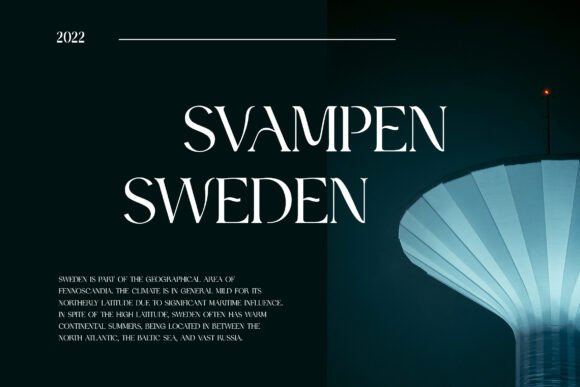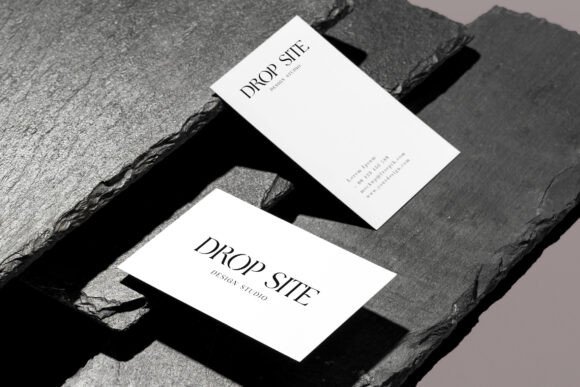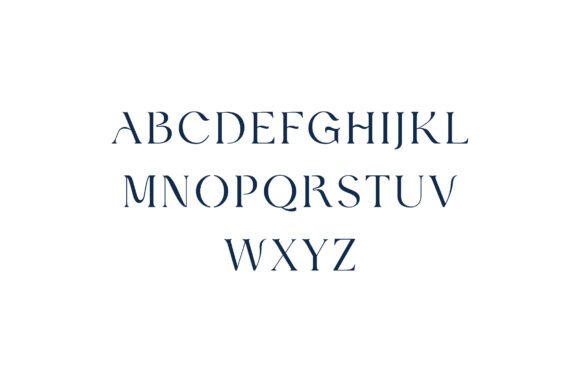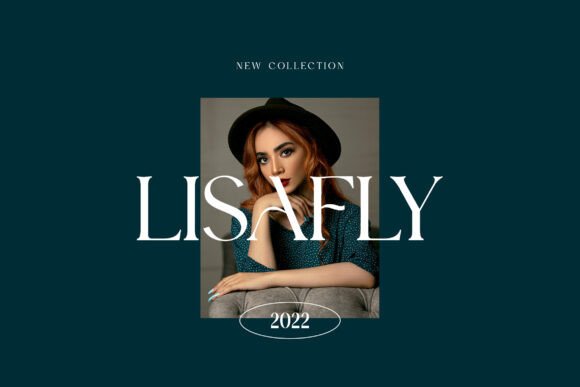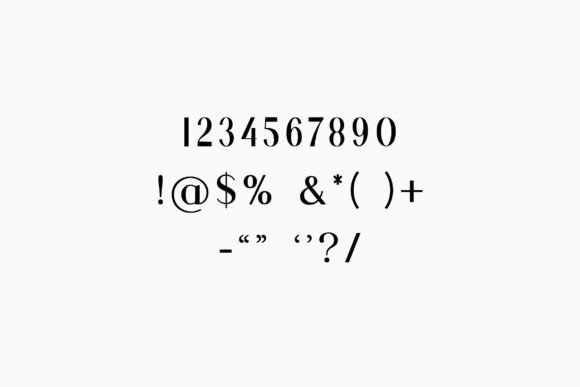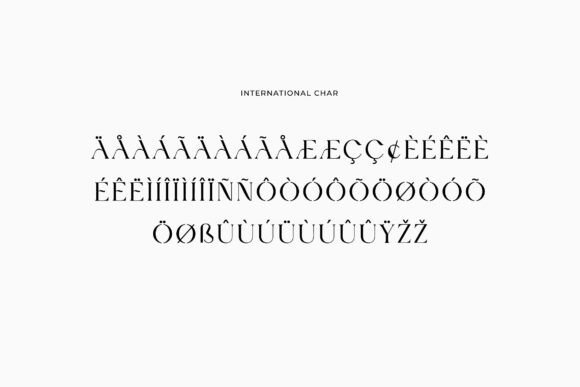
The Perfect Font for Your Creative Masterpiece
Have you ever stared at a blank page, struggling to find the perfect words to express your vision? For designers, this moment is all too familiar. But what if you had a font that could elevate your ideas, making them shine like never before? That’s where the Hydrogenous Font comes in – an elegant and bold serif font designed to bring your creative projects to life.
With its incredibly versatile style, the Hydrogenous Font is perfect for creating stunning wedding invitations, beautiful stationery art, eye-catching social media posts, and so much more. Whether you’re a seasoned designer or just starting out, this font is a valuable addition to your toolkit. Its unique blend of elegance and boldness makes it an ideal choice for designers looking to add a touch of sophistication to their work.
Hydrogenous Font Key Features
- Font Family: Hydrogenous Font comes in multiple font families, including Regular, Bold, Italic, and Bold Italic.
- Unique Characteristic: Hydrogenous Font features a unique blend of modern and futuristic design elements, making it ideal for science fiction, technology, and innovation-themed projects.
Hydrogenous Font Review
Overall, I’m quite impressed with the Hydrogenous Font! It’s a unique blend of modern and futuristic elements that work well together to create a visually striking experience. ✨ The font is highly customizable, with a wide range of options for adjusting size, color, and weight. It’s also incredibly legible, making it perfect for both digital and print applications.
- Unique blend of modern and futuristic elements
- Legible in both digital and print applications
That being said, there are a few limitations to consider. ⚠️ The font can feel a bit overwhelming in certain contexts, particularly when used in large blocks of text. Additionally, the customizability options can be a bit overwhelming for non-designers, which may lead to inconsistent application of the font. Finally, the font doesn’t include as many language support options as some other fonts on the market.
Overall, I’d highly recommend the Hydrogenous Font for any project that requires a bold, futuristic look. With a little care and attention to detail, it’s sure to make a lasting impression.
For best results, use the Hydrogenous font for headings and titles to create a unique and eye-catching design.
- Advertising and marketing materials.
- Web design and development.